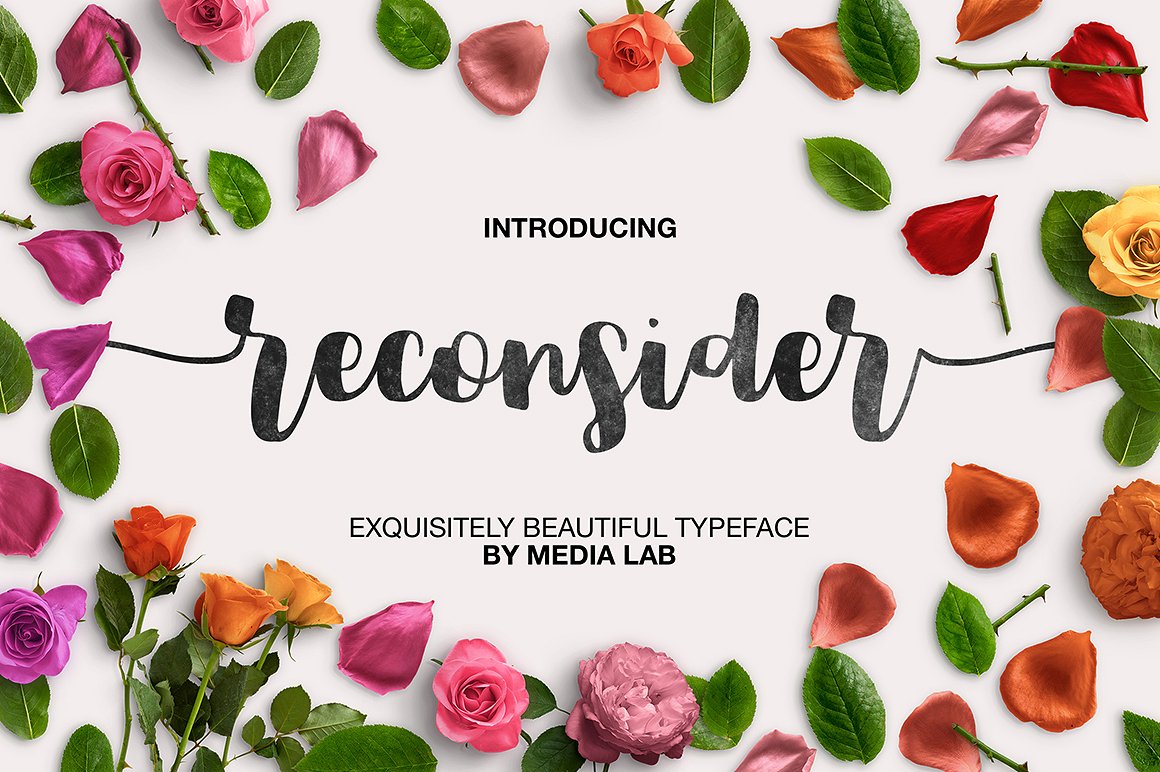
Reconsider Script Font
Reconsider – a new fresh handmade calligraphy font. Very suitable for greeting cards, branding materials, business cards, quotes, posters, and more!
| Classification: | Brush Fonts, Handwritten Fonts, Script Fonts |